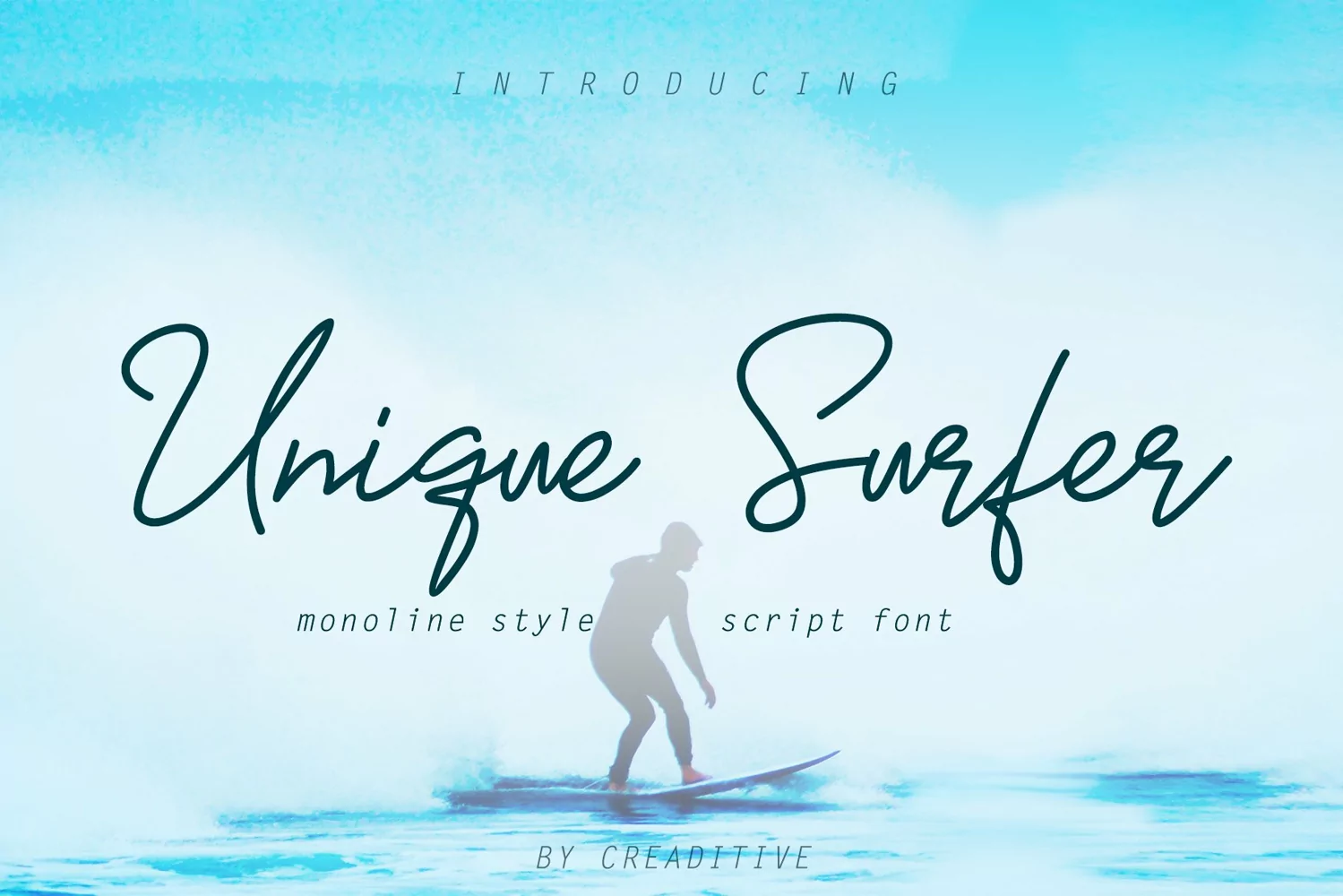
Unique Surfer is a fresh and unique monoline script font with a bold touch. With it’s dynamic elements, it will add a lovley touch to any design.
Unique Surfer